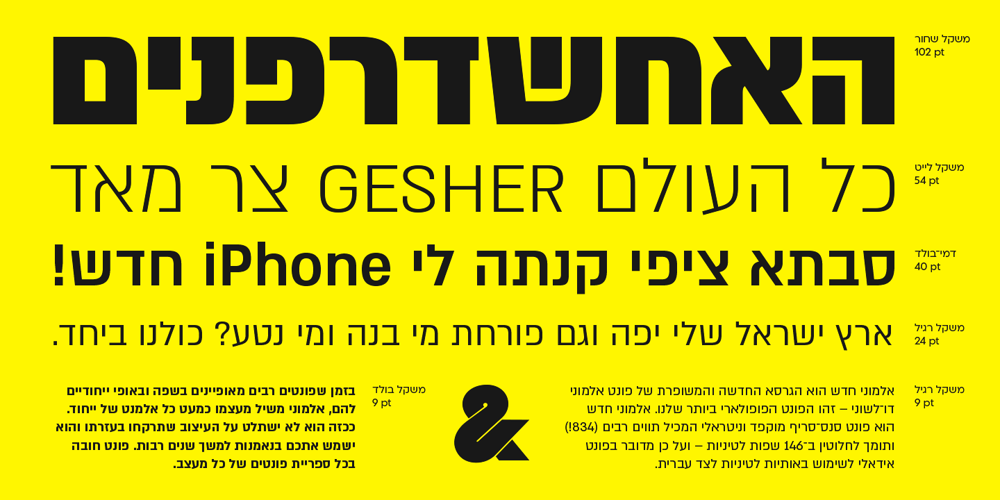
Almoni
Almoni font
Almoni Font Family was designed by Avraham Cornfeld and published by AlefAlefAlef. Almoni contains 10 styles and family package options. Almoni is a precise, neutral multi-lingual sans typeface and is one of the most popular fonts in Israel. It contains many glyphs and fully supports 230 Latin and Cyrillic languages – which makes it an ideal font for the side-by-side use of Latin and Hebrew characters. Many fonts are characterized by their unique character and language, and yet Almoni sheds almost all elements of uniqueness; as such, it will not overshadow your entire design. Every designer needs this functional font in their arsenal. Cyrillic design by Anna Khorash.